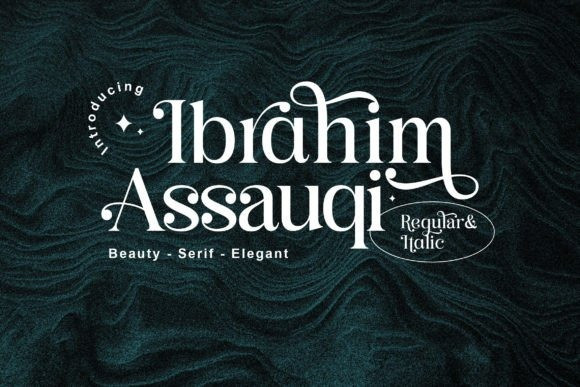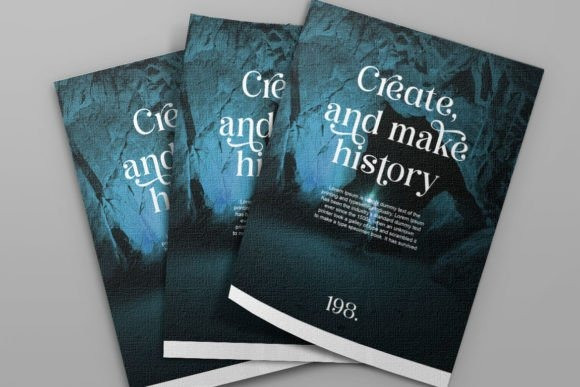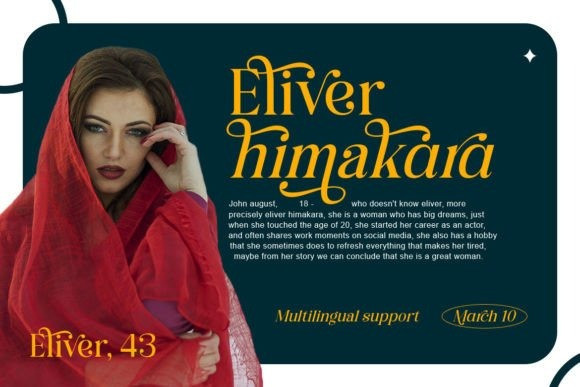
Ibrahim Assauqi Font Family
Ibrahim Assauqi is a stylish and incredibly elegant serif font. It looks stunning on wedding invitations, thank you cards, quotes, greeting cards, logos, business cards, and every other design which needs a classy touch.